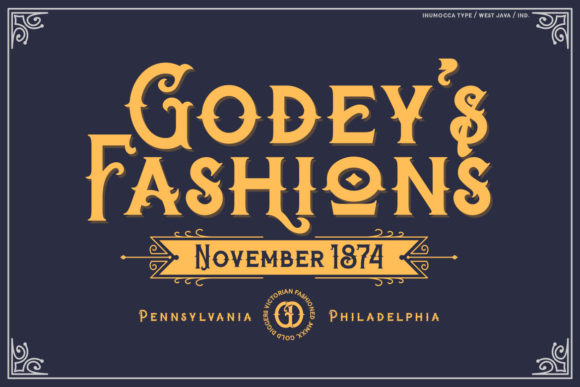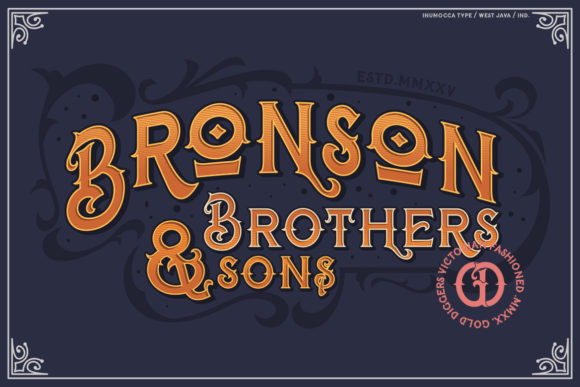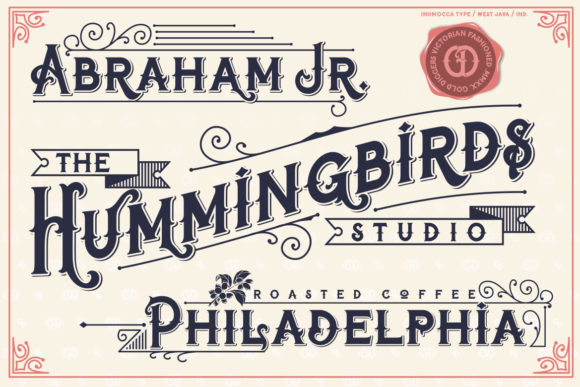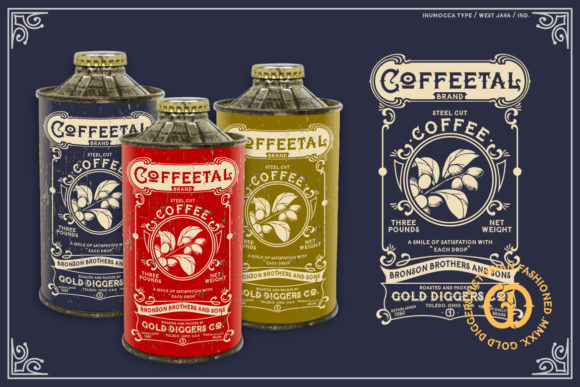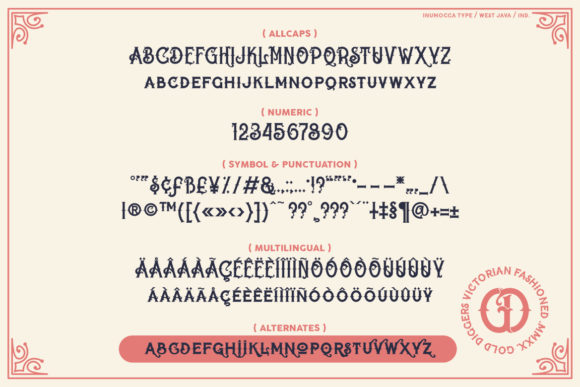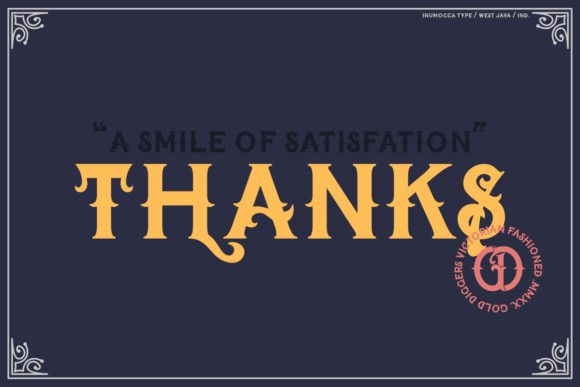
Introduction to Gold Diggers Font Font
Fonts play a crucial role in design, and the Gold Diggers Font font is a typeface that brings both character and versatility to any project. Whether you’re working on a branding project, a website, or a print design, the Gold Diggers Font font offers a unique style that can elevate your work.
| 📌 Font Name | Gold Diggers Font |
| 👤 Author | inumocca_type |
Gold Diggers is inspired by the Victorian Era and looks both vintage and elegant.
Add this display font to each of your designs and notice how they come alive .
Key Features of Gold Diggers Font Font
Why Choose Gold Diggers Font Font?
The Gold Diggers Font font is more than just a typeface – it’s a design tool that helps you communicate your message with style and clarity. Its unique character set and versatile design make it suitable for a wide range of applications, from elegant invitations to bold headlines.
With its carefully crafted letterforms and balanced proportions, the Gold Diggers Font font ensures readability and visual appeal across all mediums.
What makes Gold Diggers Font font special?
The Gold Diggers Font font stands out with its unique design, exceptional readability, and versatility across various design applications.